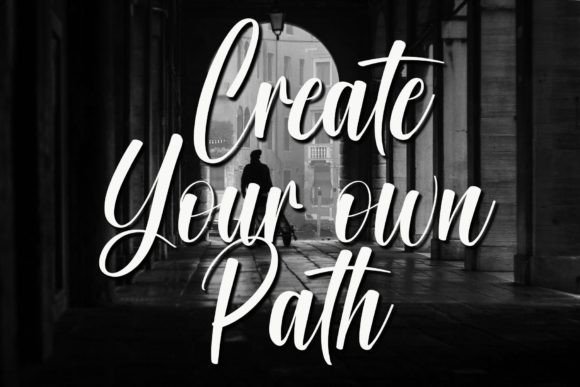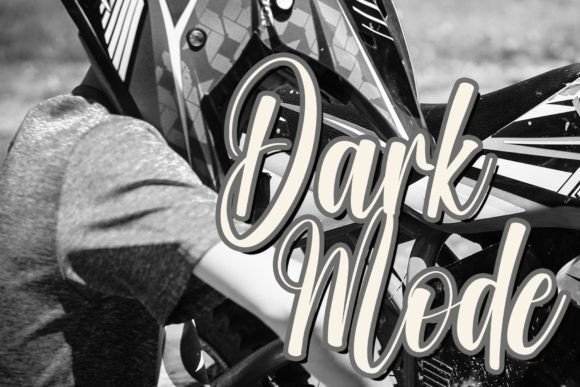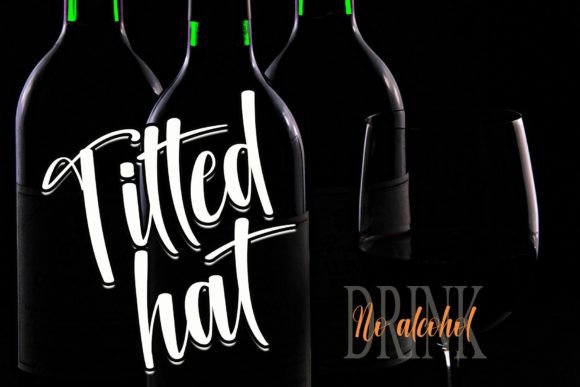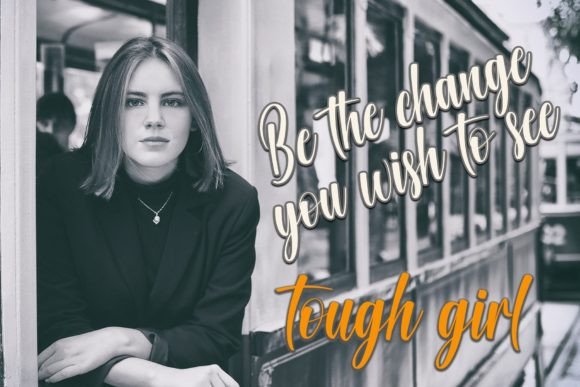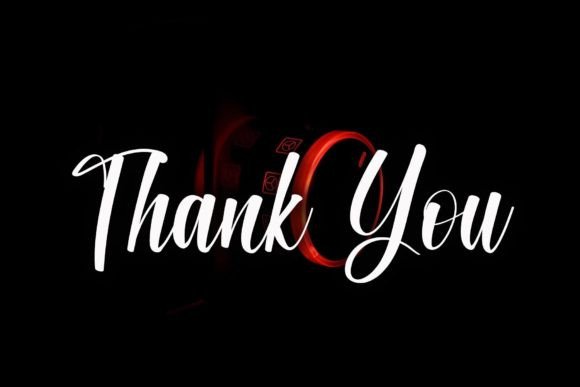
Deltas Font: Elevate Your Designs with a Fresh and Beautiful Typeface
In the world of design, typography plays a crucial role in capturing the essence of a brand or project. A well-chosen font can make all the difference in creating a lasting impression on your audience. If you’re a designer, crafter, or business owner looking for a unique and versatile font, look no further than Deltas Font. In this article, we’ll explore the features and benefits of Deltas Font, and how it can elevate your designs to the next level.
What is Deltas Font?
Deltas Font is a modern and elegant typeface, perfect for a wide range of design applications. Its fresh and beautiful design makes it an excellent choice for projects that require a touch of sophistication and style. Whether you’re creating a YouTube banner, cover logo mockup, wedding invitation, ID card, flyer, or craft, Deltas Font is an excellent option to consider.
Key Features of Deltas Font
- Simple and Unique: Deltas Font boasts a simple yet distinctive design, making it easy to read and recognize. Its uniqueness sets it apart from other fonts, ensuring your designs stand out from the crowd.
- Versatile: Deltas Font is incredibly versatile, suitable for various design purposes, from digital projects like YouTube banners and social media graphics to print materials like wedding invitations and ID cards.
- Elegant and Modern: The font’s elegant and modern design makes it perfect for businesses and individuals looking to create a professional and stylish visual identity.
Benefits of Using Deltas Font
By incorporating Deltas Font into your designs, you can experience several benefits that can help take your projects to the next level:
- Enhanced Visual Appeal: Deltas Font’s beautiful design will add a touch of sophistication and style to your projects, making them more visually appealing to your audience.
- Improved Brand Identity: Consistency in typography is crucial for building a strong brand identity. Deltas Font can help you establish a cohesive visual brand, making your business more recognizable and memorable.
- Increased Engagement: A well-designed font can engage your audience and draw them into your message. Deltas Font’s unique design will help you capture the attention of your target audience and keep them interested.
- Time-Saving: With Deltas Font, you can save time and effort in finding the perfect font for your projects. Its versatility and elegance make it an excellent all-around choice, reducing the need to search for multiple fonts.
Design Applications for Deltas Font
Deltas Font is an excellent choice for a wide range of design applications, including:
- YouTube Banners: Create eye-catching YouTube banners that showcase your brand’s personality and style with Deltas Font.
- Cover Logo Mockups: Use Deltas Font to create stunning cover logo mockups that will help your business stand out.
- Wedding Invitations: Add a touch of elegance and sophistication to your wedding invitations with Deltas Font.
- ID Cards: Create professional and stylish ID cards that make a great impression with Deltas Font.
- Flyers: Design attention-grabbing flyers that effectively communicate your message with Deltas Font.
- Crafts: Use Deltas Font to add a personal touch to your crafts, making them more unique and special.